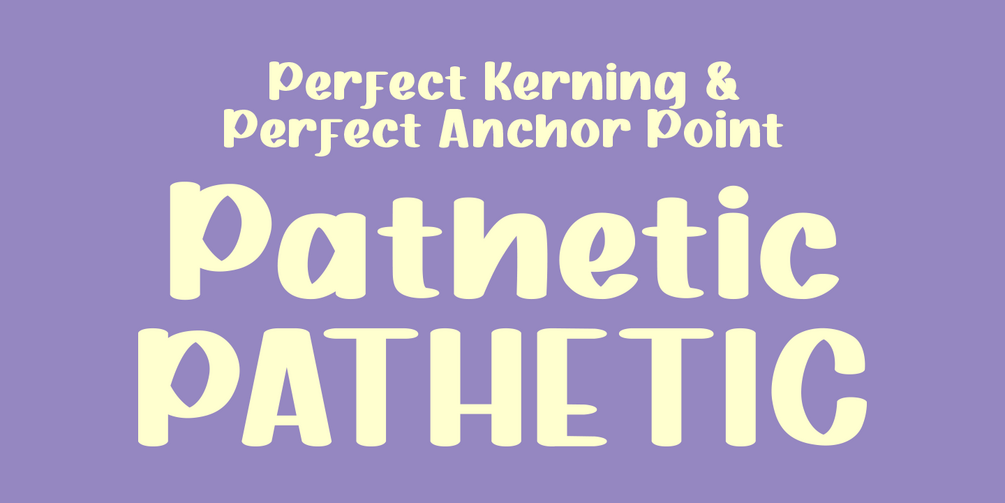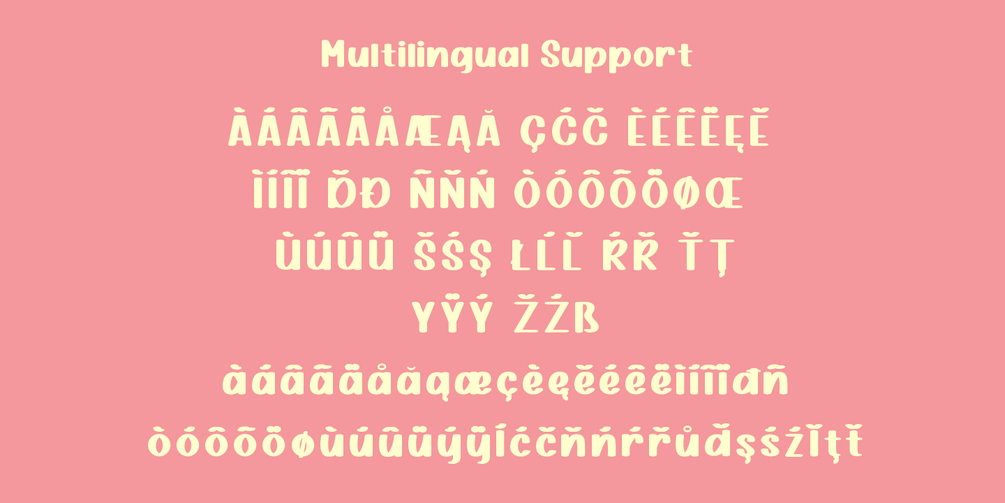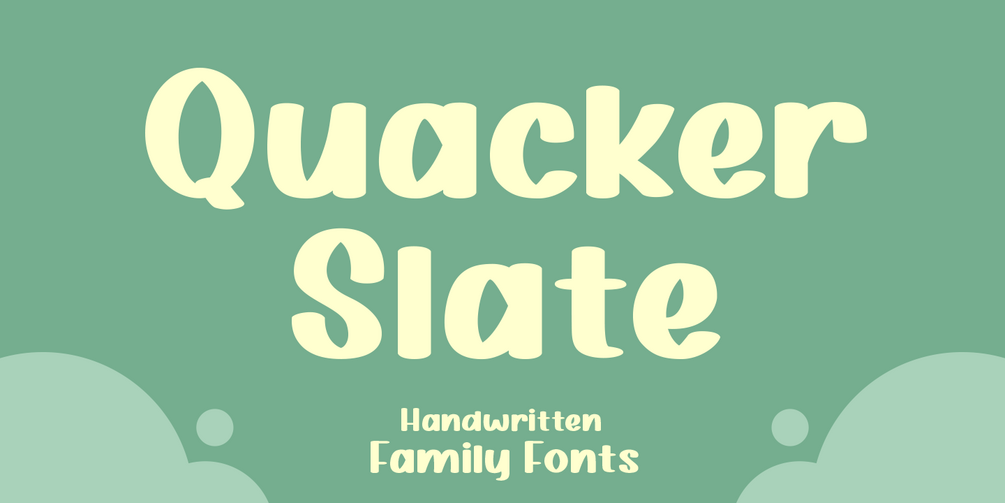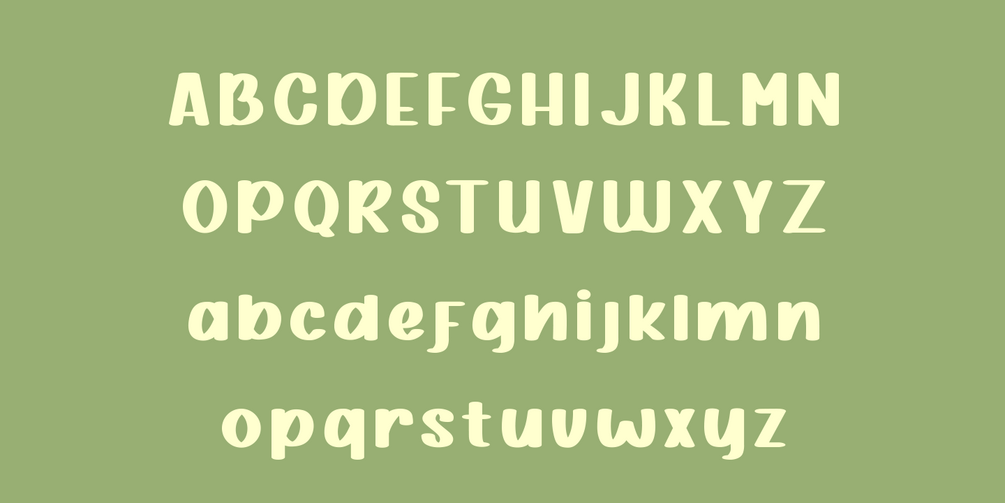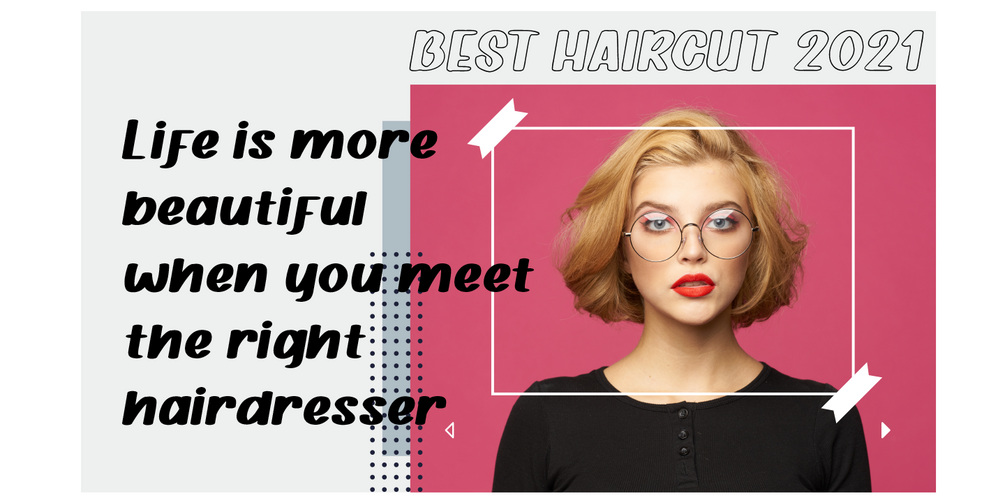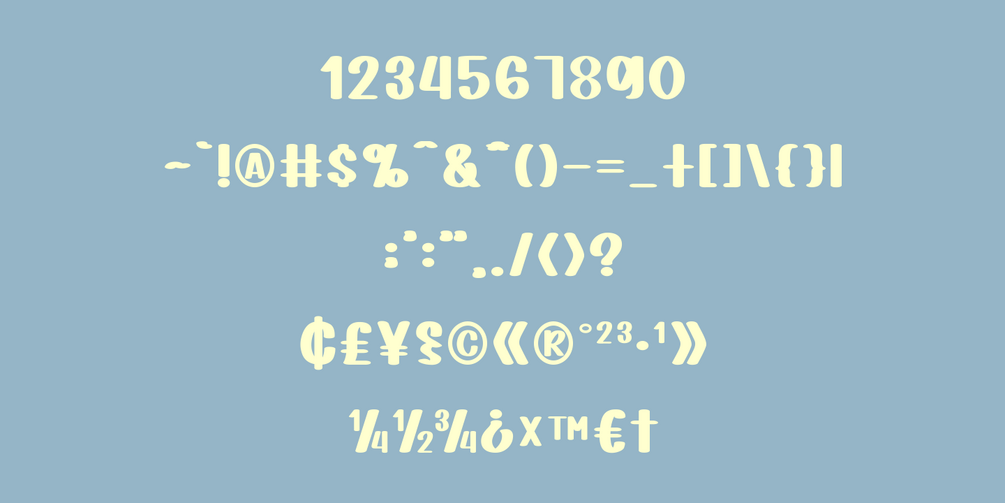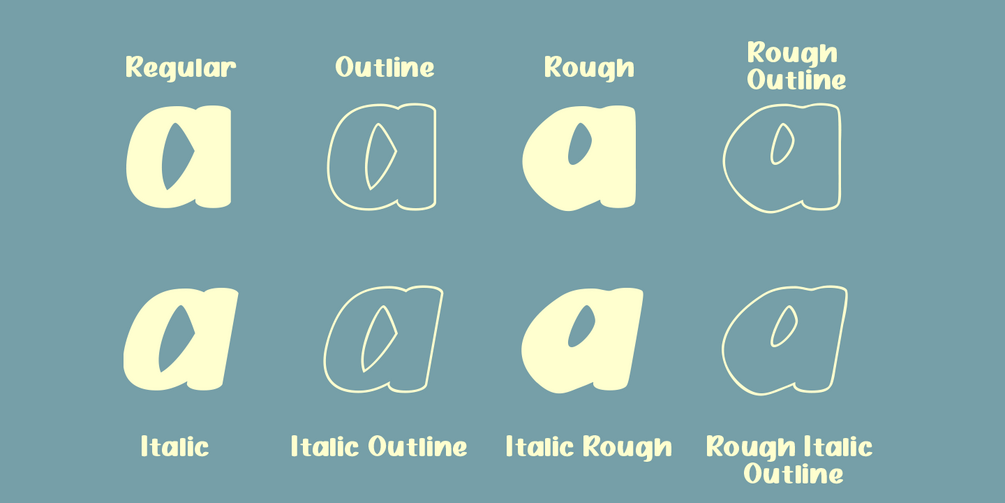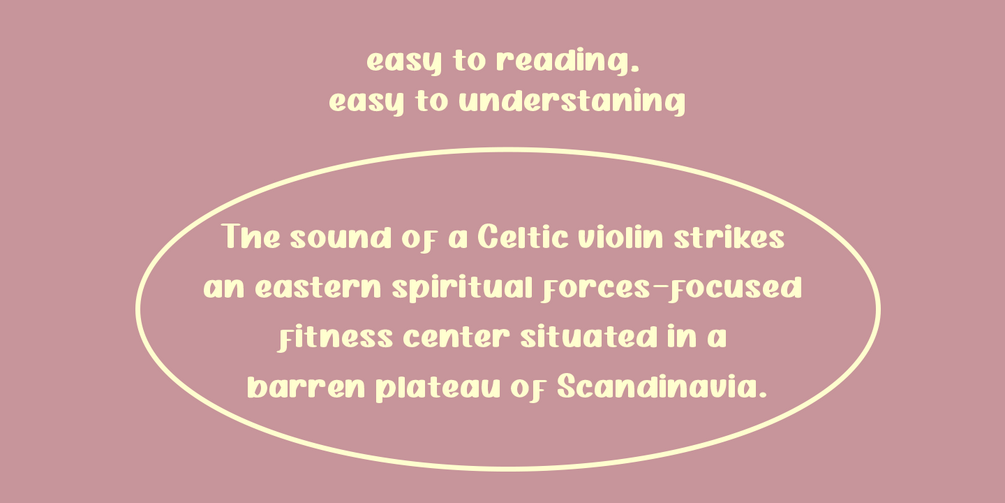
Quacker Slate - Handwritten Family Fonts
Quacker Slate is a hand written family font with perfect reading for your graphic, good kerning.
this font good for your brand/company, fashion content, slogan logo, instagram content.
What's Included In Glyph ?
• Uppercase
• Lowercase
• Numerals
• Symbols
• European Multilingual